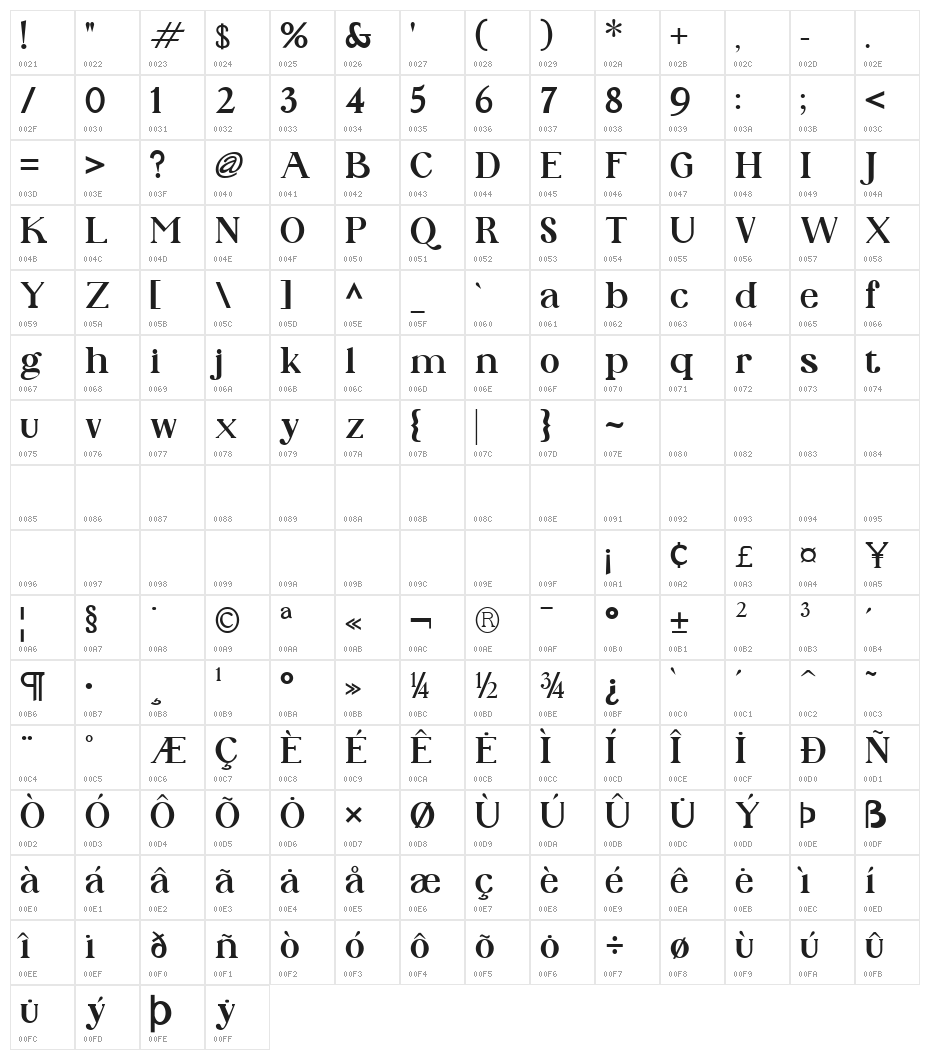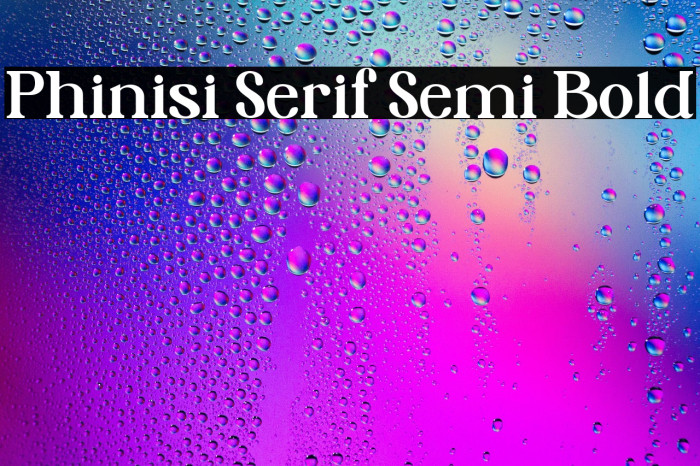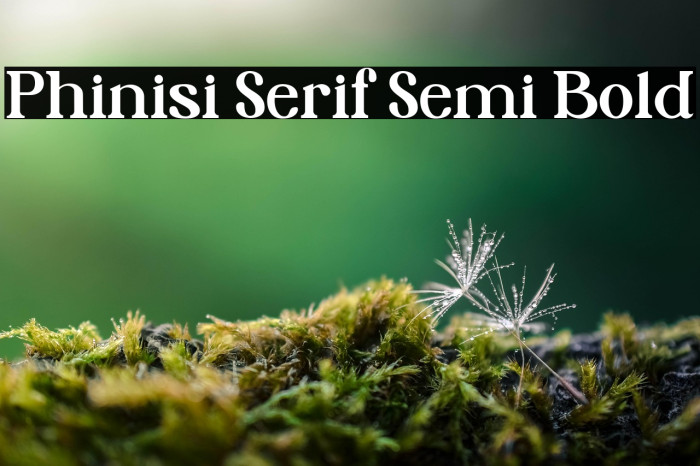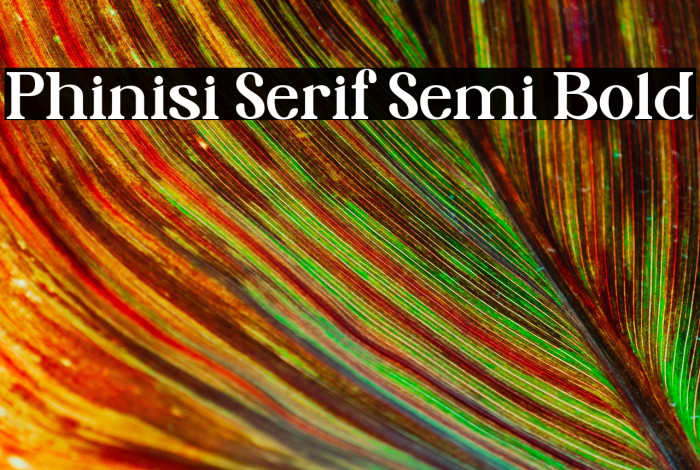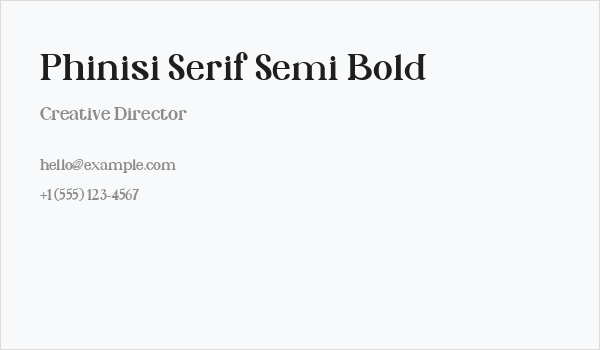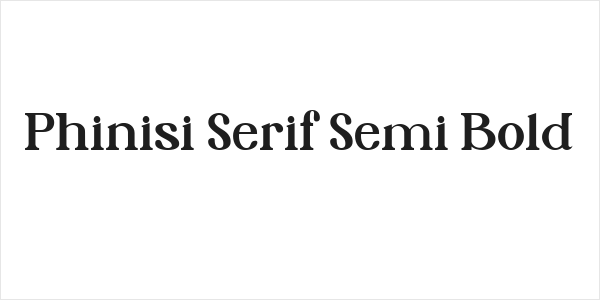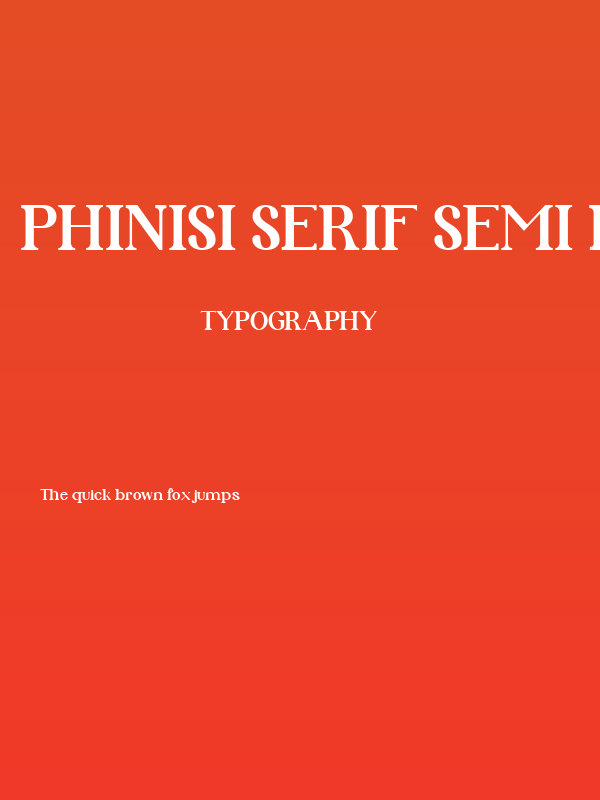
Phinisi Serif Semi Bold Font
Phinisi Serif Semi Bold Description
This font exhibits a classic serif style with semi-bold weight, offering a strong yet elegant appearance. The serifs are pronounced, providing a traditional feel, while the semi-bold weight adds a modern touch. The uppercase letters are well-proportioned, and the lowercase letters maintain a consistent flow, enhancing readability. The numerals are distinct and clear, making them suitable for various applications. Special characters are well-designed, complementing the overall aesthetic. This font is versatile, suitable for both digital and print media, and can be used in a variety of design projects.
| Proposed Projects | Ideal for editorial design, book covers, branding, and formal invitations. |